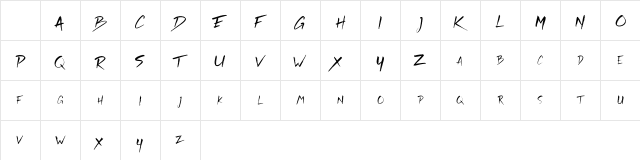
Rickies Free is a composed and adaptable typeface that performs quietly and consistently across a wide range of design contexts.
Pro Tip: Use Rickies Free in both headline and body roles to test its range before committing to a single application.